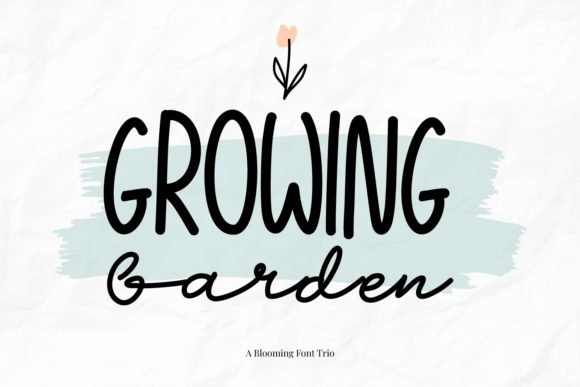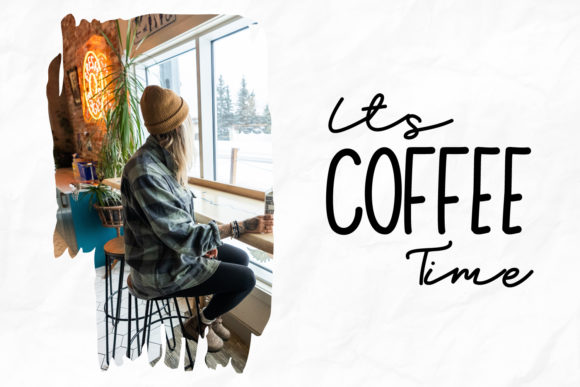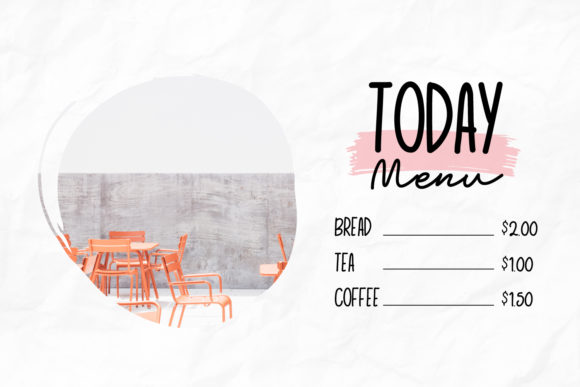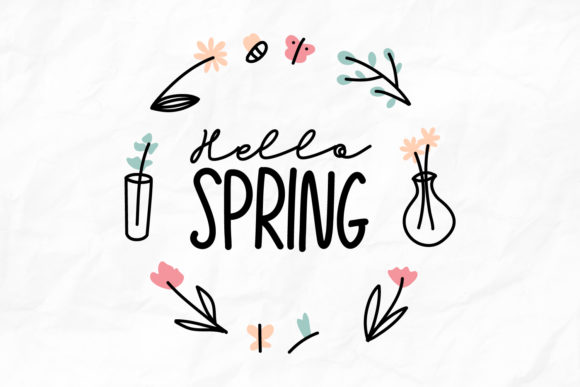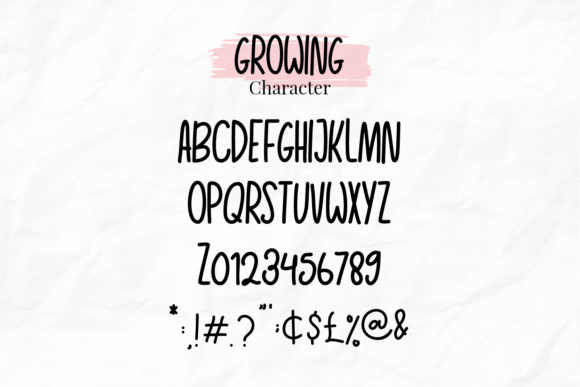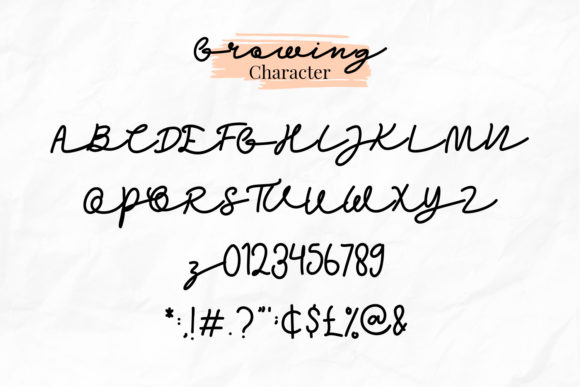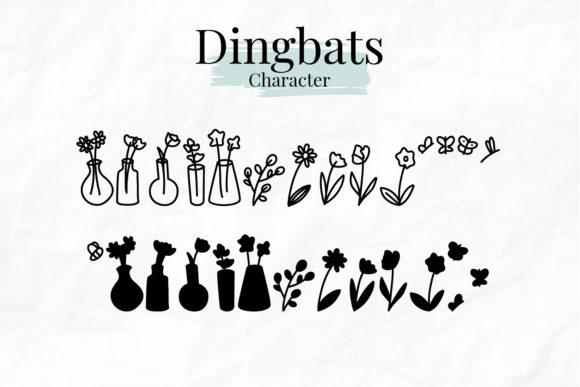
Handwritten Charm: The Beauty of Growing Garden Font
There’s something magical about creating something from scratch – the feeling of bringing a blank page to life, of watching an idea unfold into a beautiful reality. For designers, it’s a moment of pure joy, a reminder of why we do what we do. And for those who love the handwritten touch, Growing Garden Font is the perfect tool to add that special something to any design.
This elegant and natural trio handwritten font is more than just a pretty face – it’s a versatile and original look that’s sure to appeal to a wide range of crafty ideas. From wedding invitations to thank you cards, quotes to logos, and business cards to greeting cards, Growing Garden Font adds a touch of warmth and personality to every design it touches.
Key Features of Growing Garden Font
- Unique Characteristics: Growing Garden Font features a whimsical, hand-drawn design with intricate details and subtle texture, making it perfect for adding a touch of elegance and sophistication to any project.
- Font Style: The font is available in a single style, with a mix of uppercase and lowercase letters, numerals, and punctuation marks, offering a cohesive and harmonious visual experience.
Designer Review: Growing Garden Font
Overall, I think the Growing Garden Font is a lovely, hand-drawn script that’s perfect for adding a touch of whimsy and personality to your designs. ✨ The curves are smooth, and the letterforms are well-connected, making it a great choice for body text or headlines.
- The font’s natural, organic feel makes it a great fit for designs related to gardening, nature, or the outdoors.
- The Growing Garden Font comes in a variety of weights and styles, giving you plenty of options to choose from.
- It’s a great choice for designers who want to add a touch of hand-drawn charm to their designs.
However, I do think there are a few limitations to the font. ⚠️ For one, it’s not the most readable font, especially at smaller sizes. The letterforms can get a bit cluttered, and the curves can be hard to distinguish.
- The font may not be the best choice for designs that require a lot of small text or fine details.
- It’s not a great choice for titles or headings that need to be highly legible.
- The font’s organic feel may not be suitable for all design styles or industries.
Overall, I think the Growing Garden Font is a unique and charming font that’s perfect for designers who want to add a touch of personality to their designs. Just be aware of its limitations, and use it in the right context.
Tips for Getting the Most Out of Growing Garden Font
To get the most out of Growing Garden Font, experiment with different font sizes, colors, and combinations. You can also pair it with other fonts to create a unique and playful look. Consider using Growing Garden Font for titles, headings, and accents to add visual interest to your designs.
Common Use Cases for Growing Garden Font
Growing Garden Font is perfect for creating whimsical and playful designs, such as: